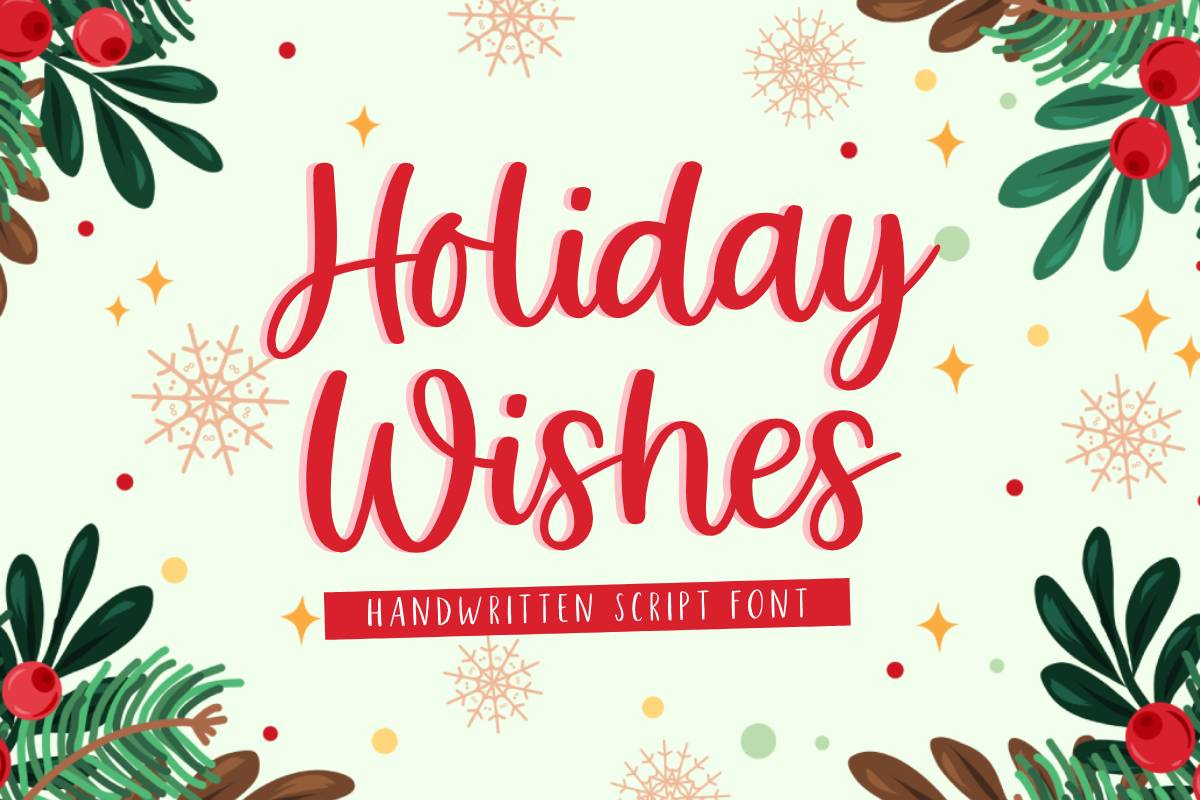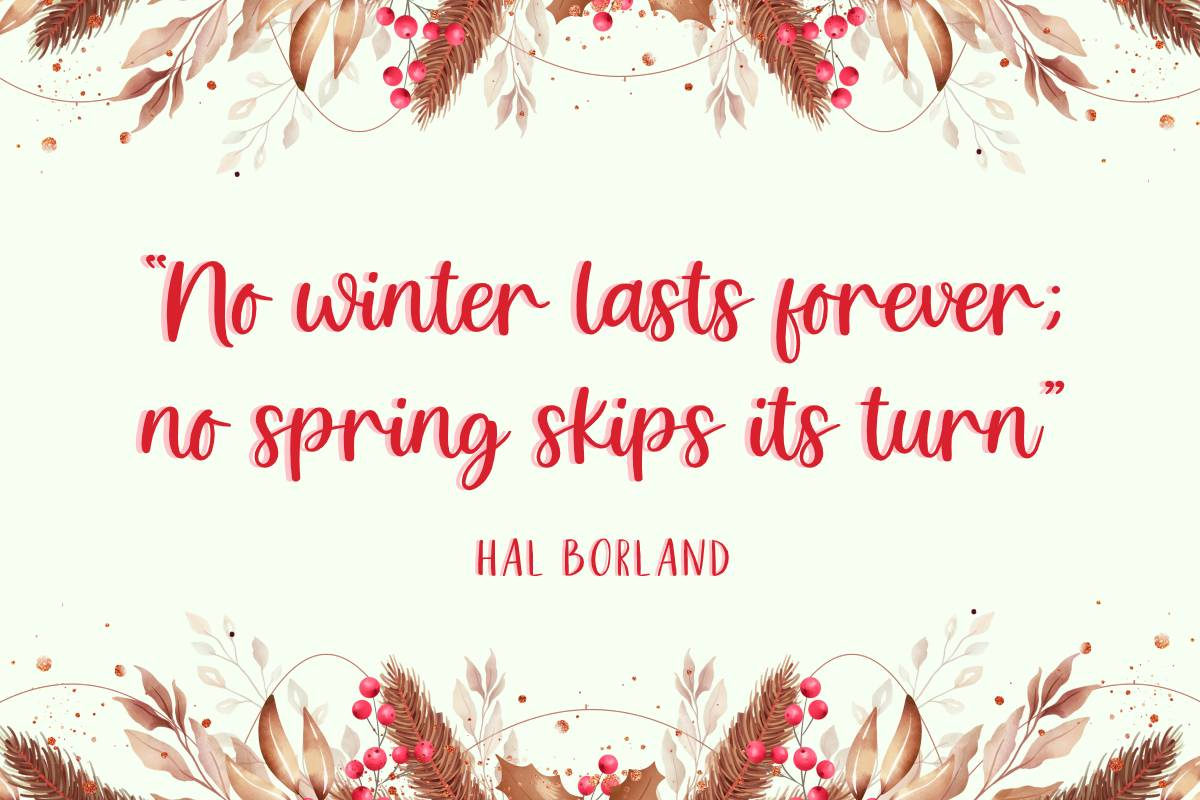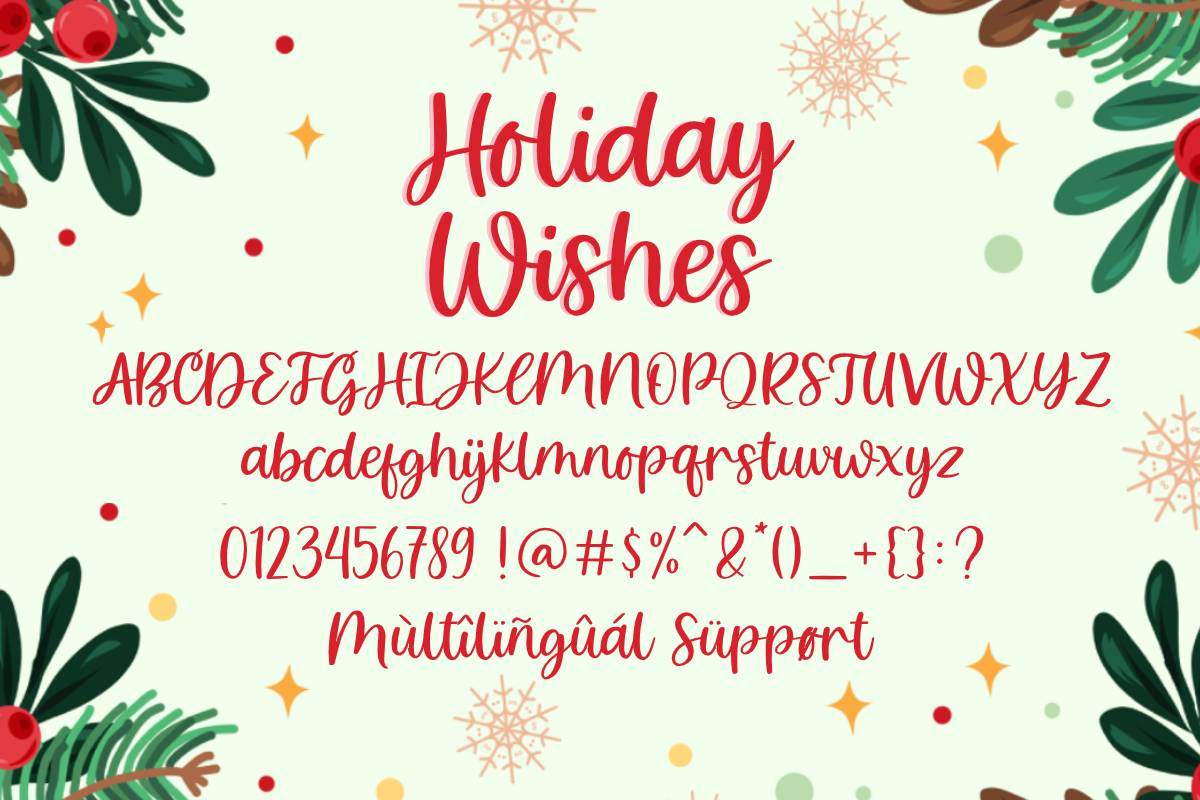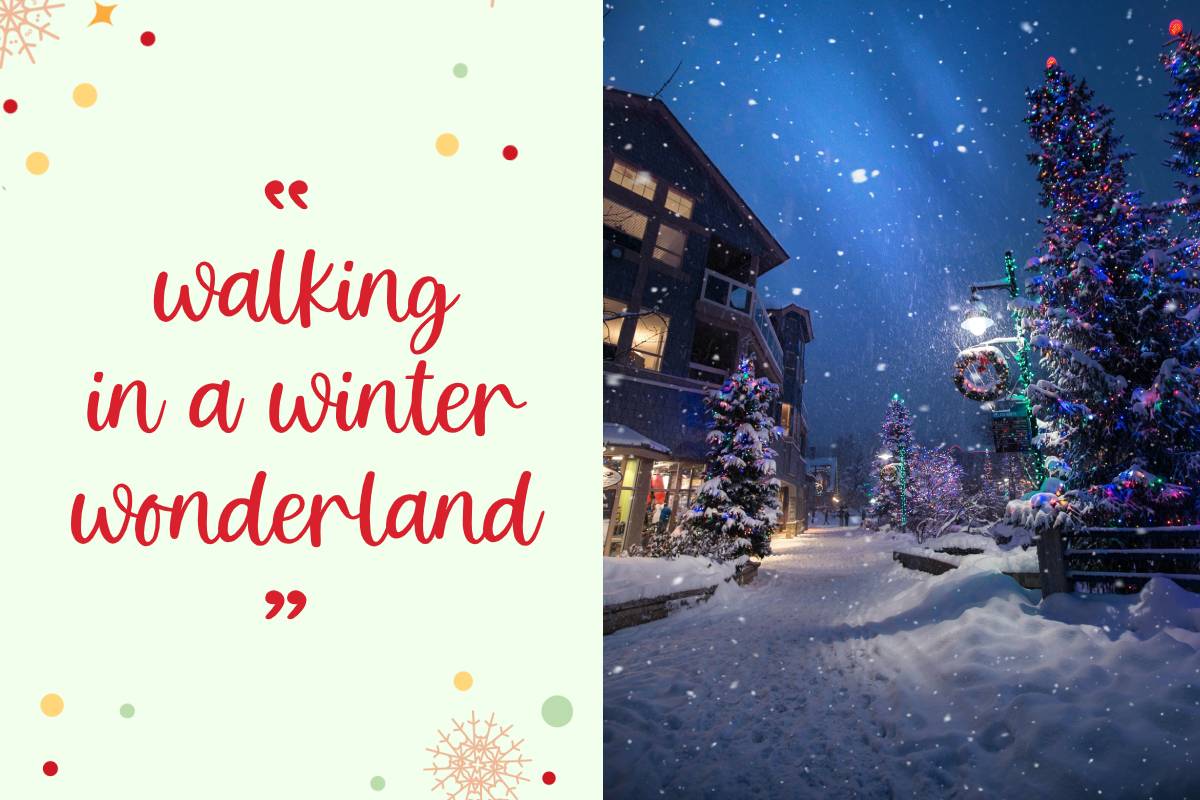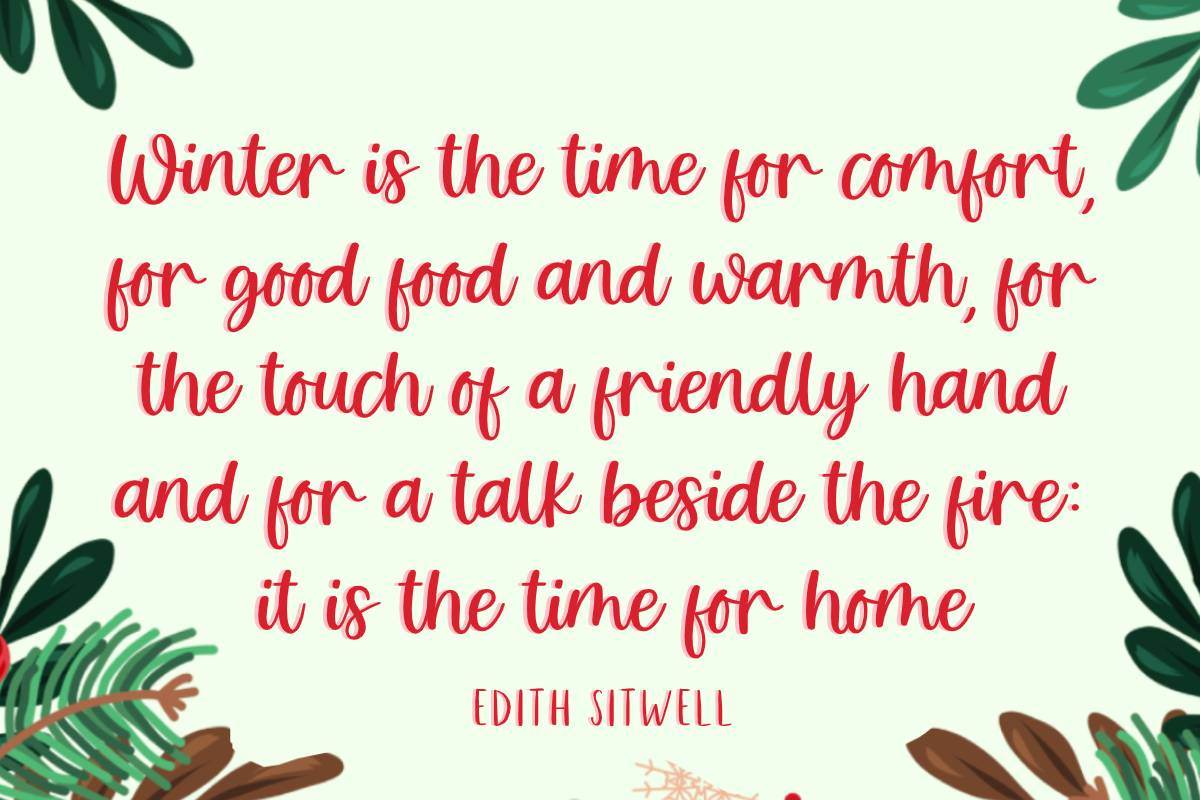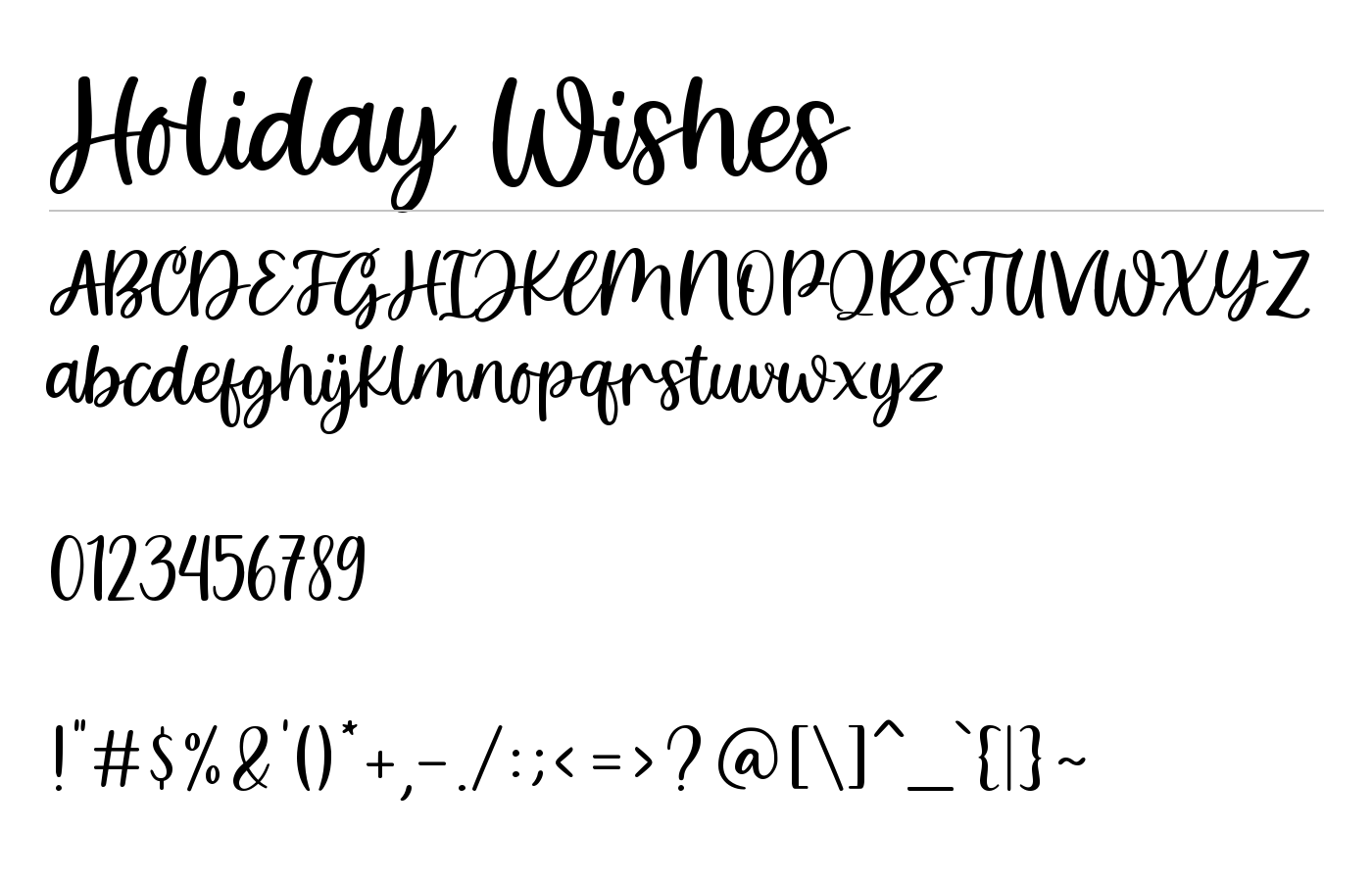
Holiday Wishes is a charming script font with playful, hand-drawn letterforms that convey warmth and friendliness. Its smooth strokes, moderate contrast, and casual flow make it perfect for festive designs, greeting cards, and branding that requires a personal, inviting touch. This font works beautifully for headlines and decorative text where a joyful, handmade feel is desired.
| Font family | Holiday Wishes Font |
| Release date | 2020-12-10 |
| Designer | Jamaludin @Jimtypestudio |